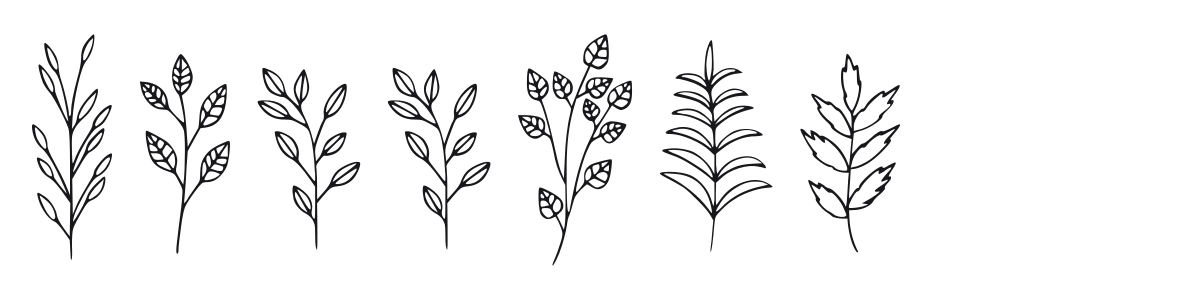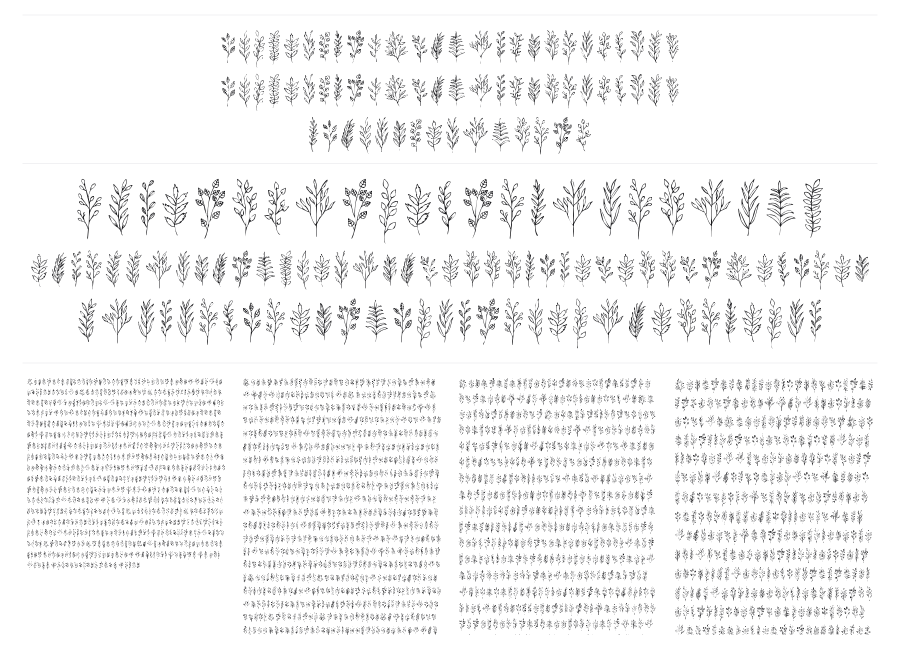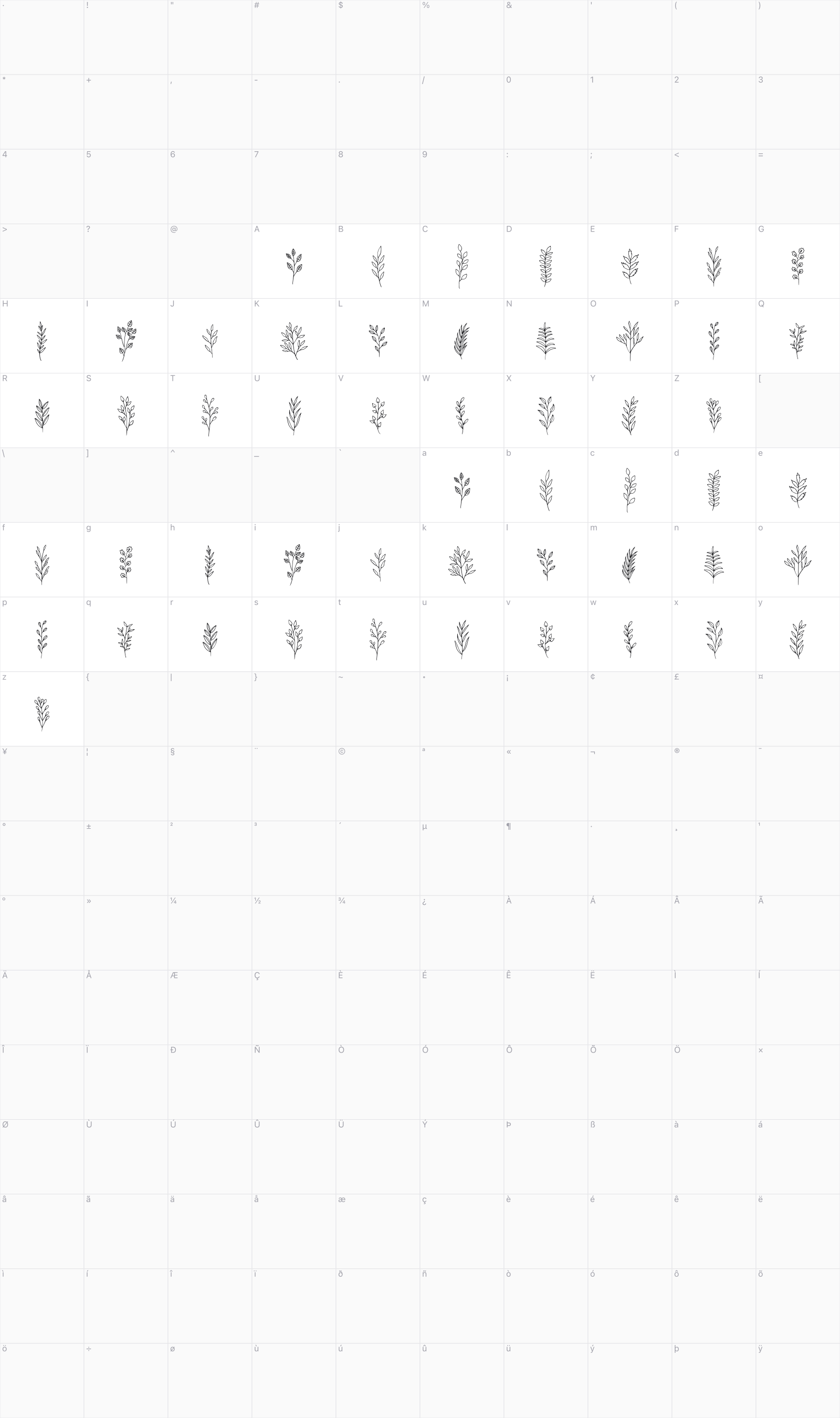
Falline
Faline is a botanical dingbat font featuring a collection of hand-drawn foliage and plant glyphs, from leafy sprigs to berry-laden branches. Every symbol is drawn in a fine monoline style that feels sketched and organic rather than mechanical. The set works naturally as decorative accents in wedding stationery, packaging, and brand identity.